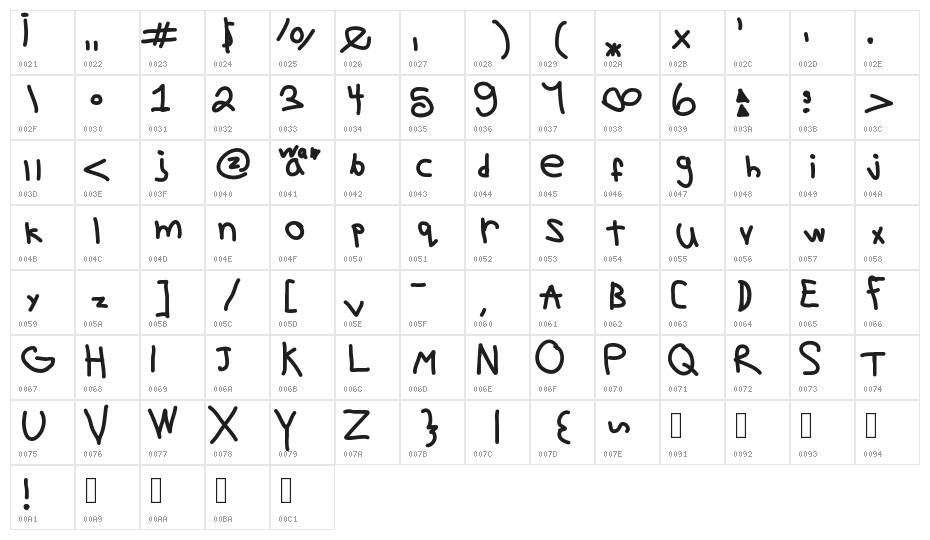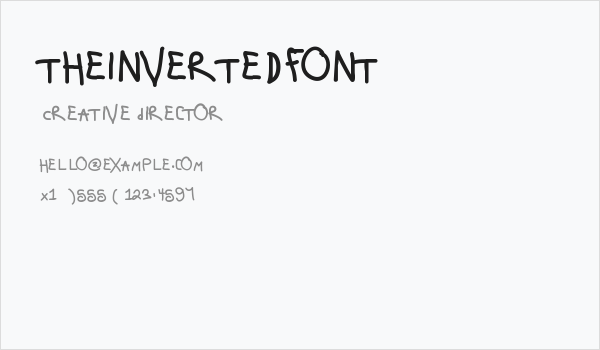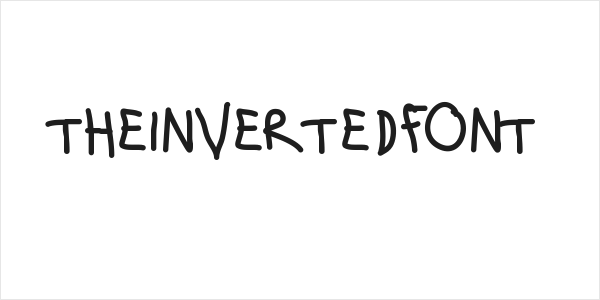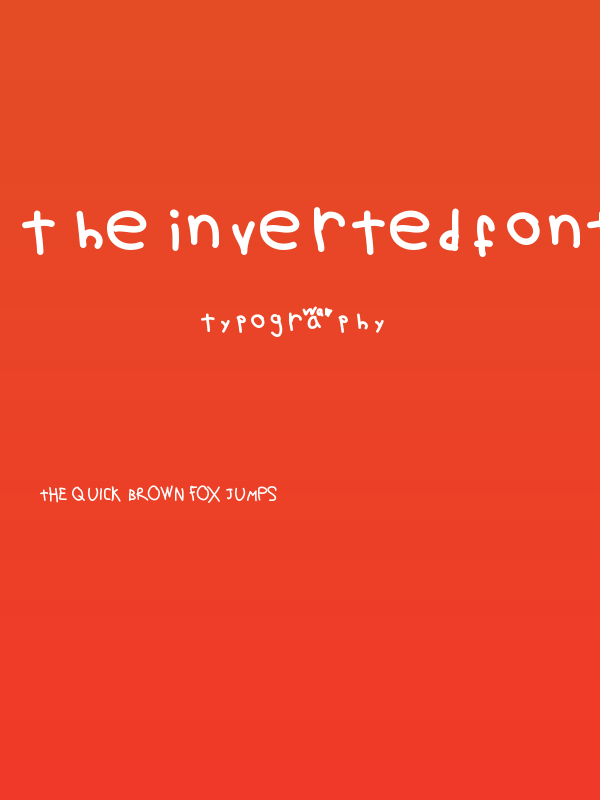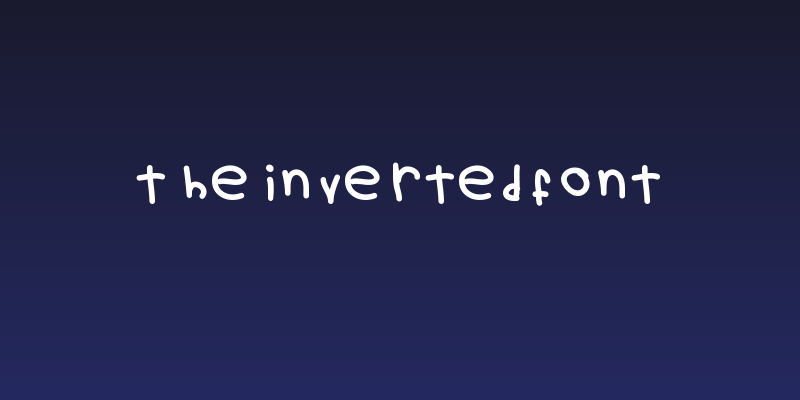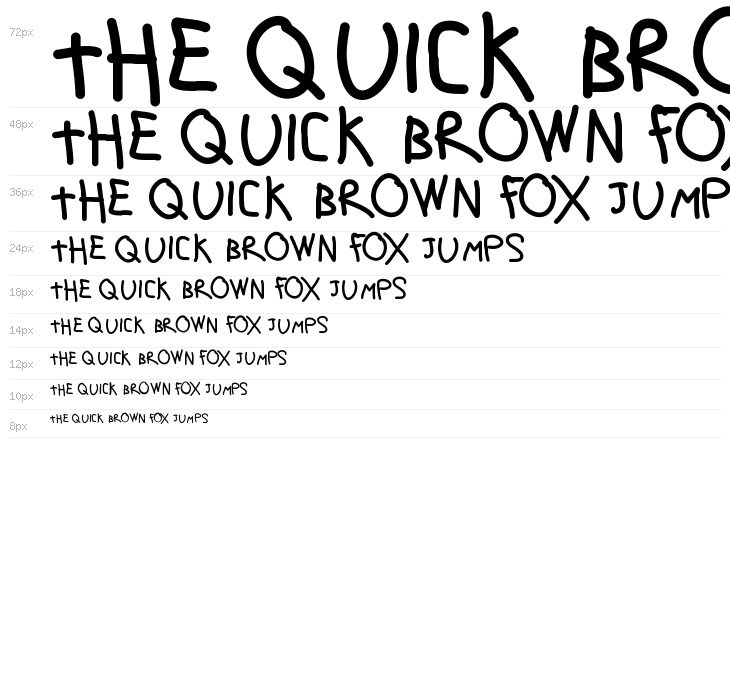
theinvertedfont Font
theinvertedfont Description
This playful and informal font features a handwritten style with a casual and relaxed appearance. The characters are slightly irregular, giving it a charming and approachable feel. The uppercase and lowercase letters maintain a consistent style, with rounded edges and a slight slant, adding to its whimsical nature. The numbers and special characters follow the same design principles, ensuring a cohesive look throughout. This font is perfect for projects that require a personal touch or a fun, lighthearted vibe.
| Proposed Projects | Ideal for greeting cards, children's books, informal invitations, and creative social media graphics. |